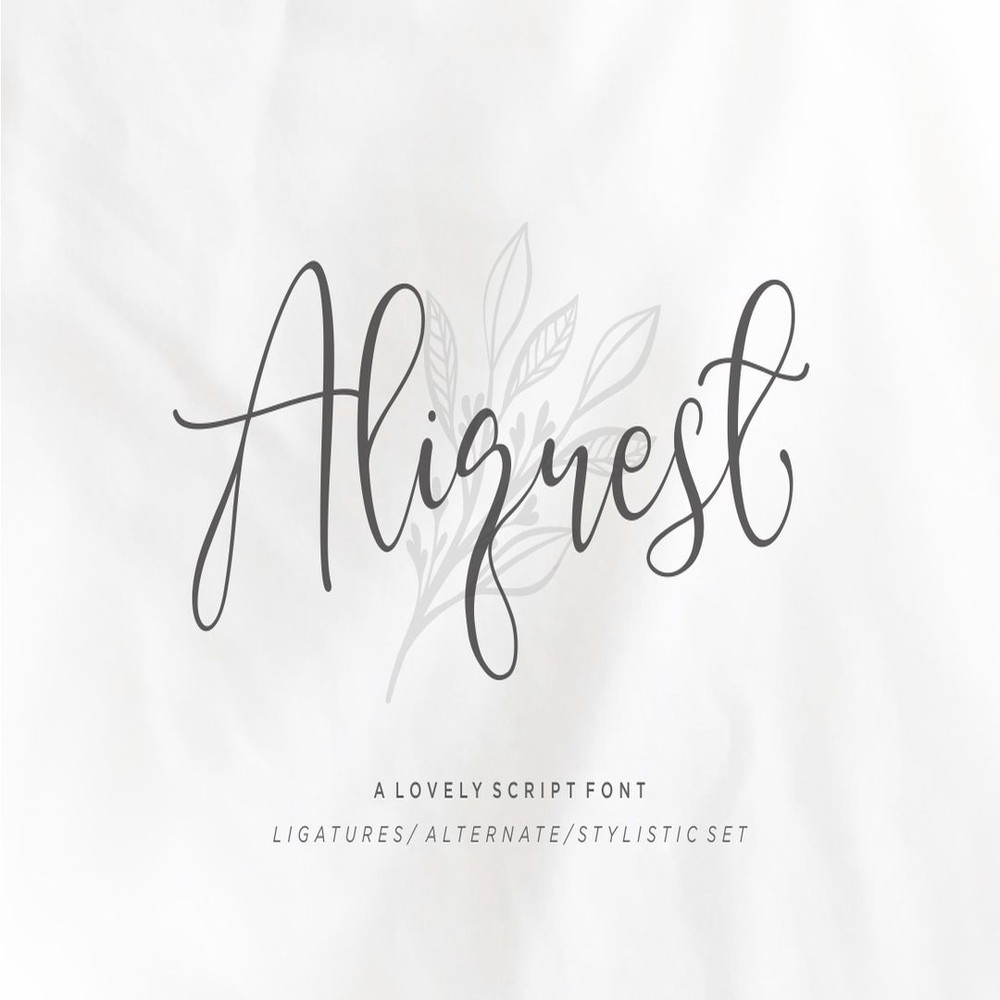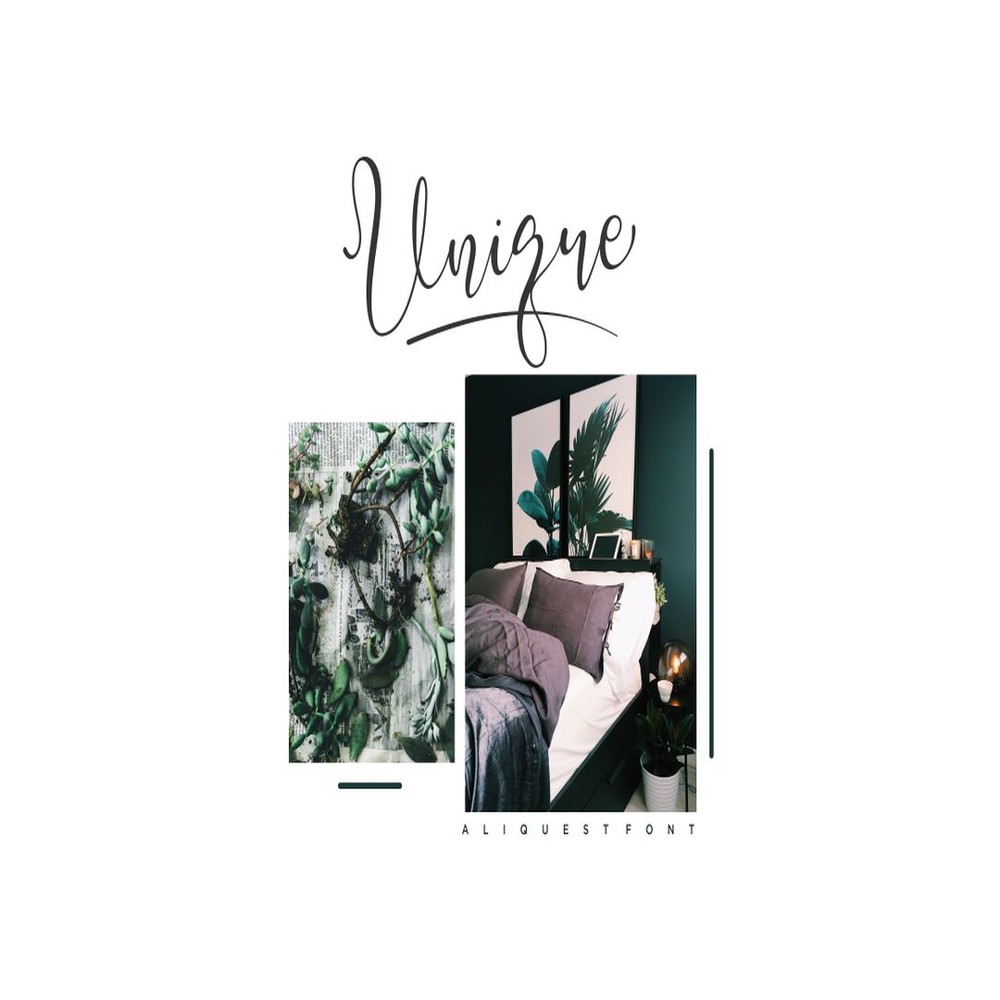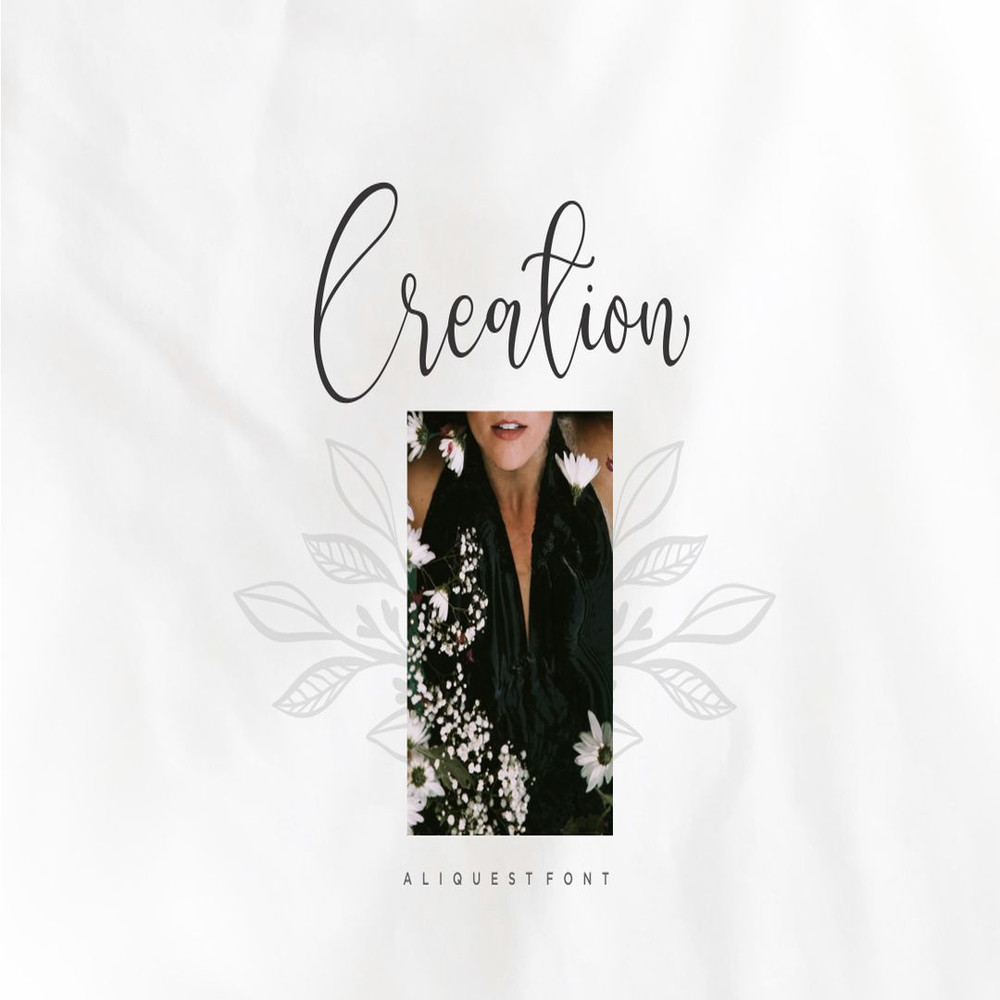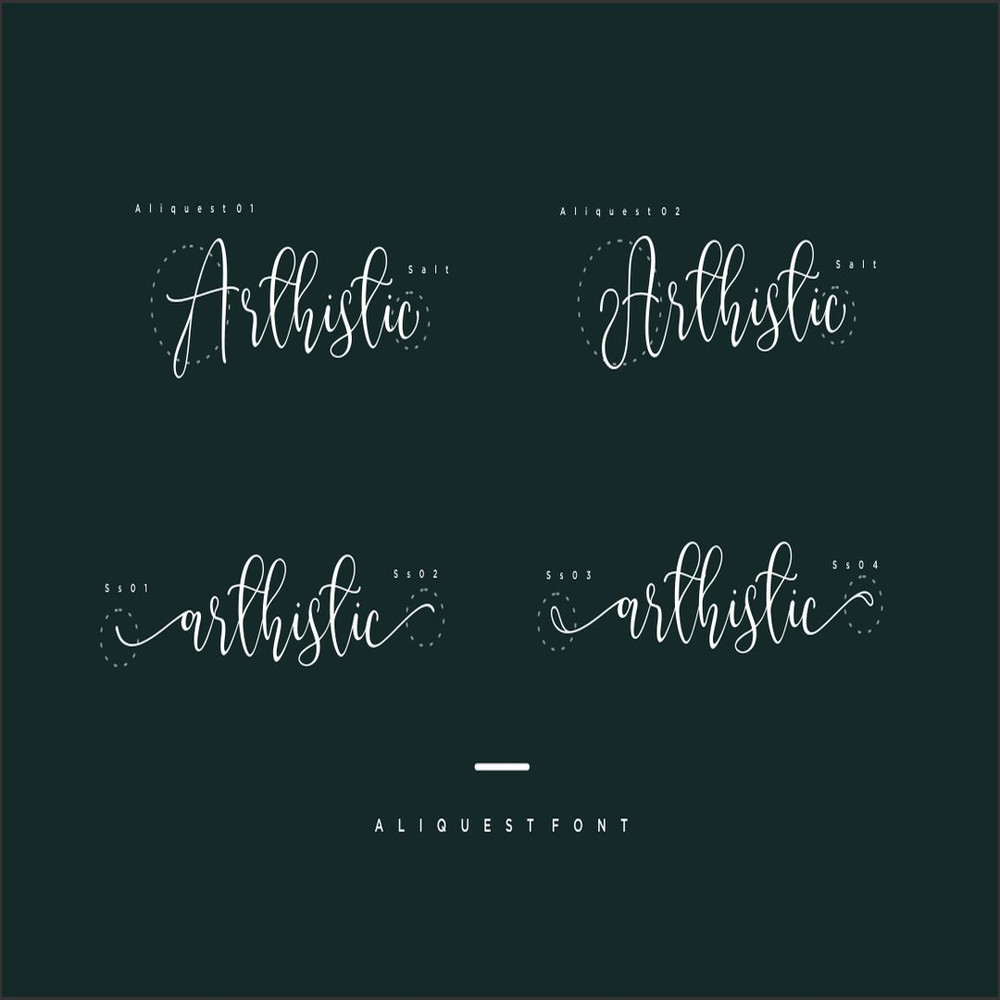
Introducing Aliquest – a new modern & fresh script with a stylish handwritten and script style make this font looks natural, classy, natural and perfect for any awesome projects that need handwriting taste.
Aliquest is perfect for many different project such as logos & branding, invitation, stationery, wedding designs, social media posts, advertisements, product packaging, product designs, label, photography, watermark, special events or anything.
Introducing Aliquest – a new modern & fresh script with a stylish handwritten and script style make this font looks natural, classy, natural and perfect for any awesome projects that need handwriting taste.
Aliquest is perfect for many different project such as logos & branding, invitation, stationery, wedding designs, social media posts, advertisements, product packaging, product designs, label, photography, watermark, special events or anything.
Introducing Aliquest – a new modern & fresh script with a stylish handwritten and script style make this font looks natural, classy, natural and perfect for any awesome projects that need handwriting taste.
Aliquest is perfect for many different project such as logos & branding, invitation, stationery, wedding designs, social media posts, advertisements, product packaging, product designs, label, photography, watermark, special events or anything.
Introducing Aliquest – a new modern & fresh script with a stylish handwritten and script style make this font looks natural, classy, natural and perfect for any awesome projects that need handwriting taste.
Aliquest is perfect for many different project such as logos & branding, invitation, stationery, wedding designs, social media posts, advertisements, product packaging, product designs, label, photography, watermark, special events or anything.